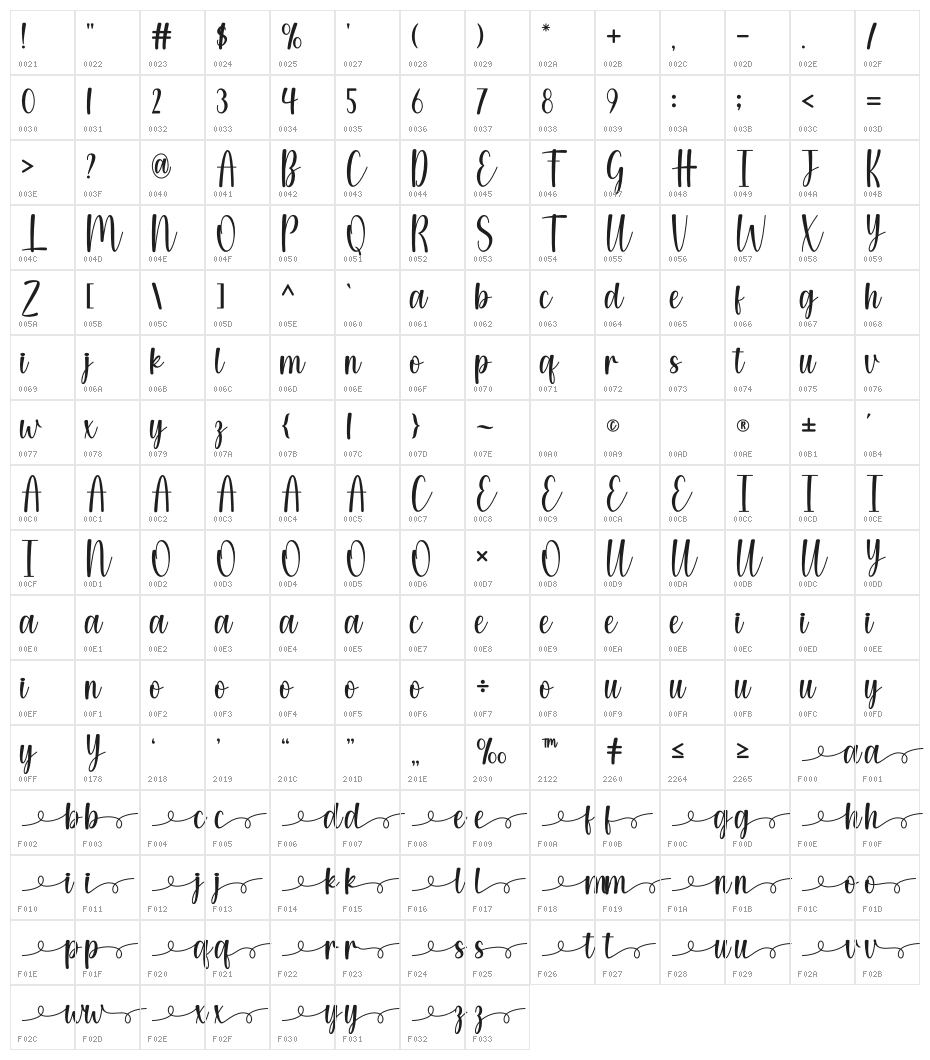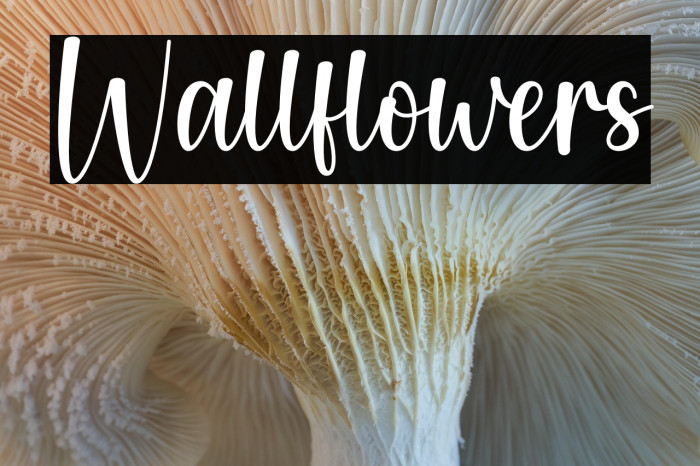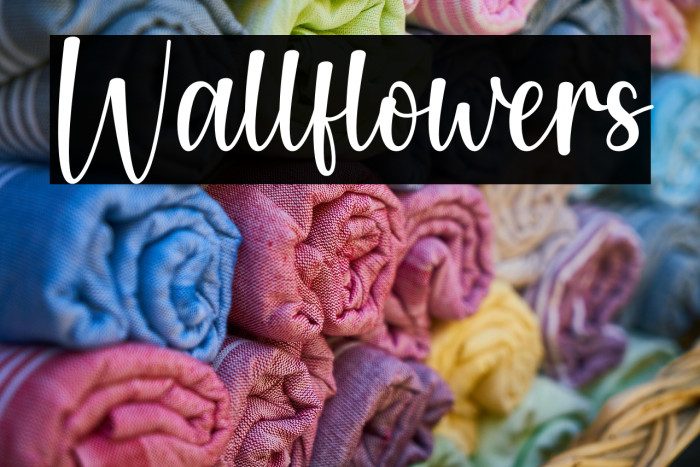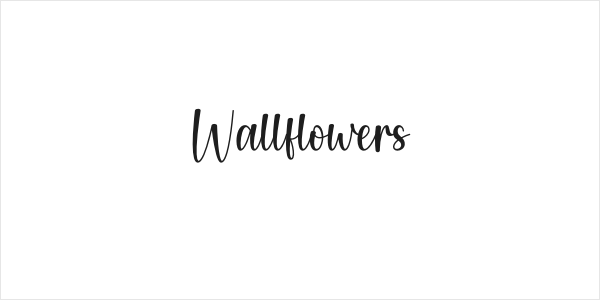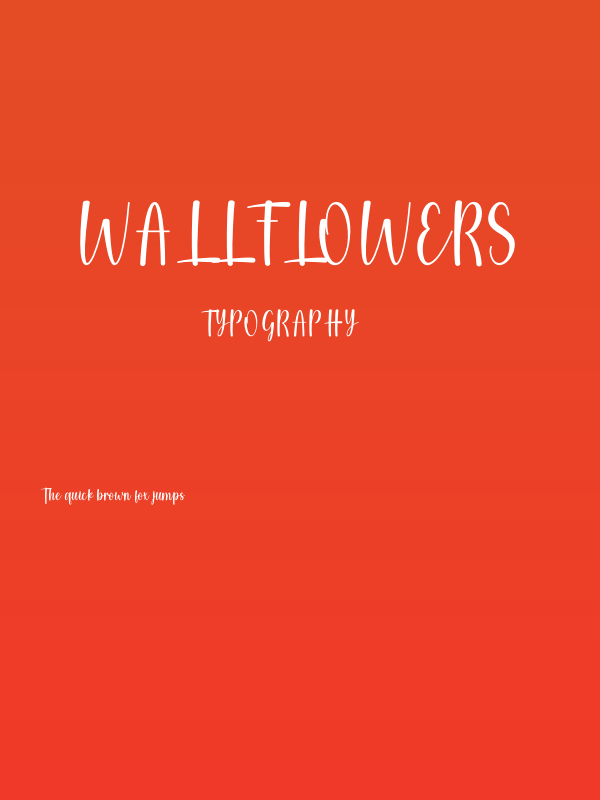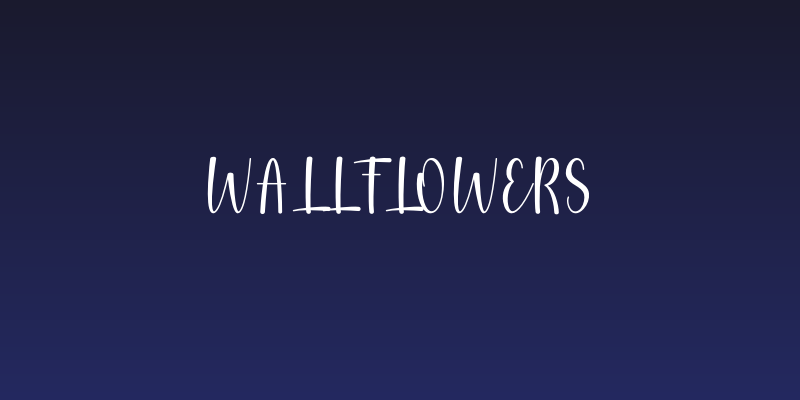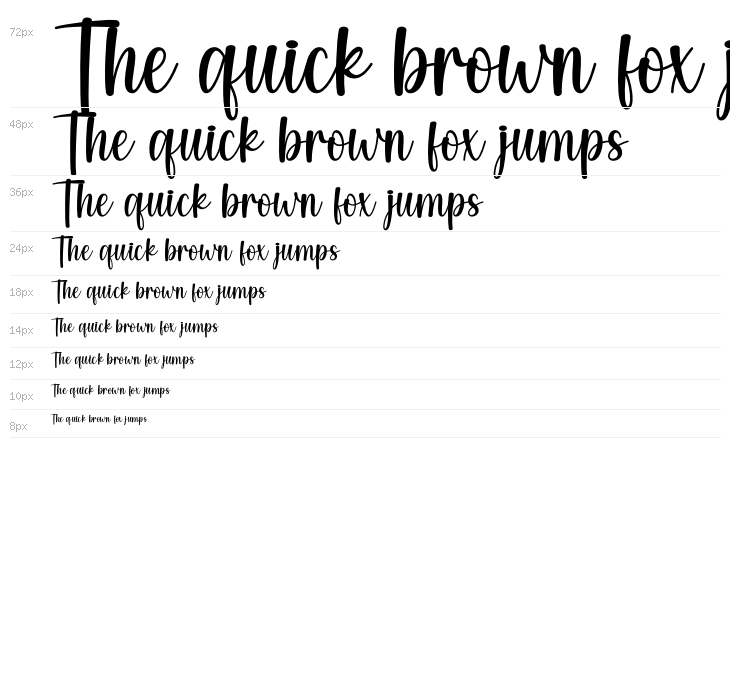
Wallflowers Font
Wallflowers Description
This font features a playful and energetic script style with a handwritten appearance. The uppercase letters are tall and slightly narrow, with a mix of straight and curved lines that give a whimsical feel. The lowercase letters are more rounded and flow smoothly, maintaining a consistent rhythm throughout. Numbers and special characters complement the letters with similar playful curves and strokes. The overall design is casual yet stylish, making it suitable for creative and informal projects.
| Proposed Projects | Ideal for greeting cards, invitations, branding, social media graphics, and creative projects that require a personal touch. |